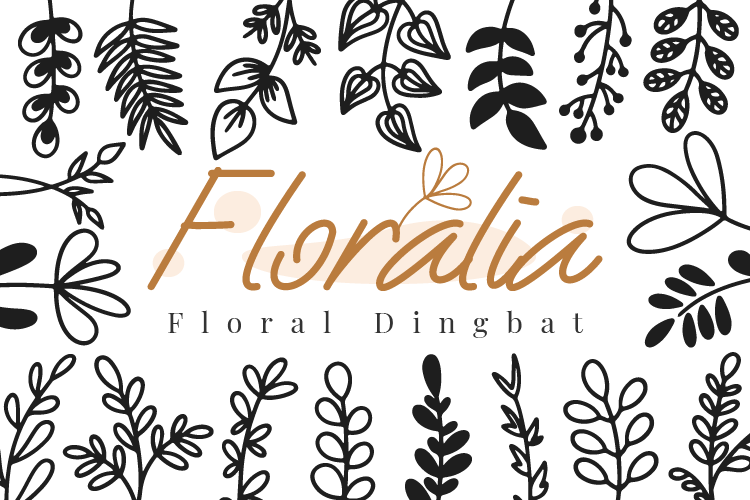
Floralial - Floral clipart font
Floralia is a lovely and delicate dingbats font. This nature related font will make each of your projects more interesting and lively. Add it confidently to your library, and you will love the results.